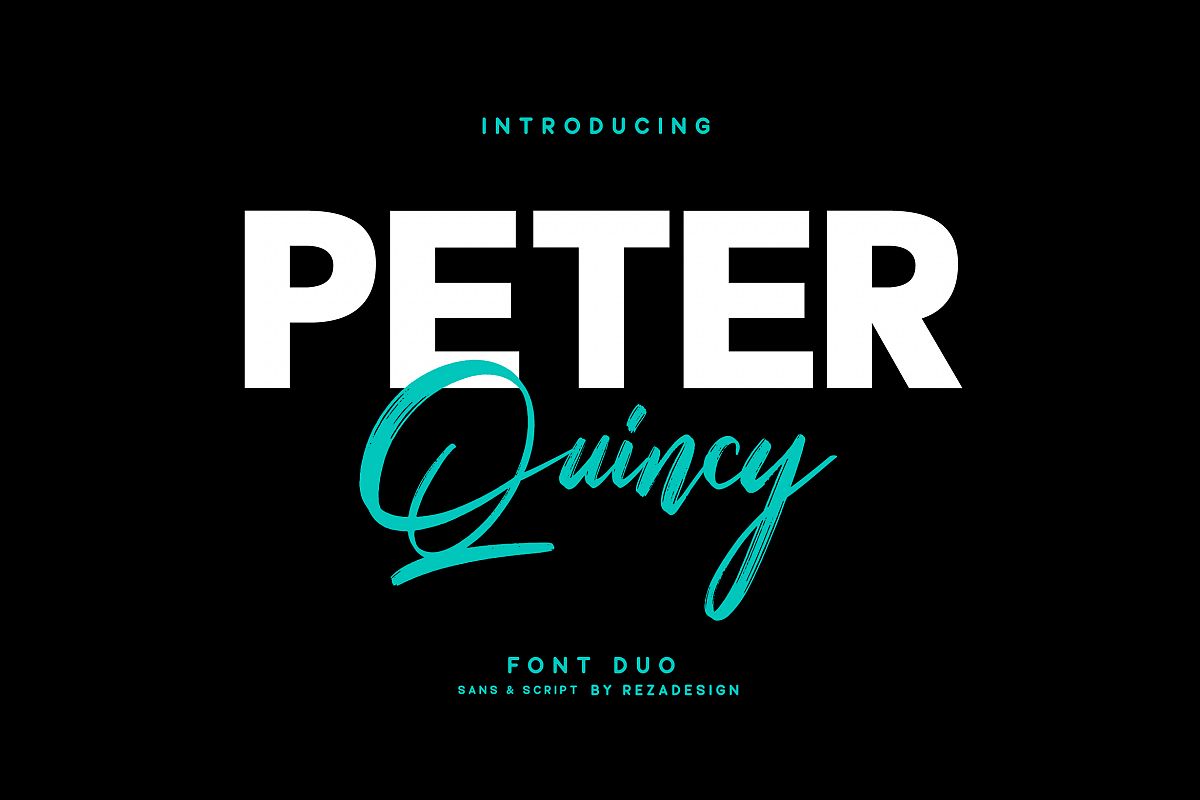
Peter Quincy - Font Duo
Peter Quincy Sans
Peter Quincy
Peter Quincy is a unique font duo, sans and handdrawn script. Peter Quincy is perfect use for a logo for branding, typography design, christmas card, product packaging, invitation, quotes, t-shirt design, label poster, special events and anything that need handwriting taste.
- Ton of glyphs (include Uppercase, Lowercase - only script version, Numerals & Punctuations)
- Multilingual Language